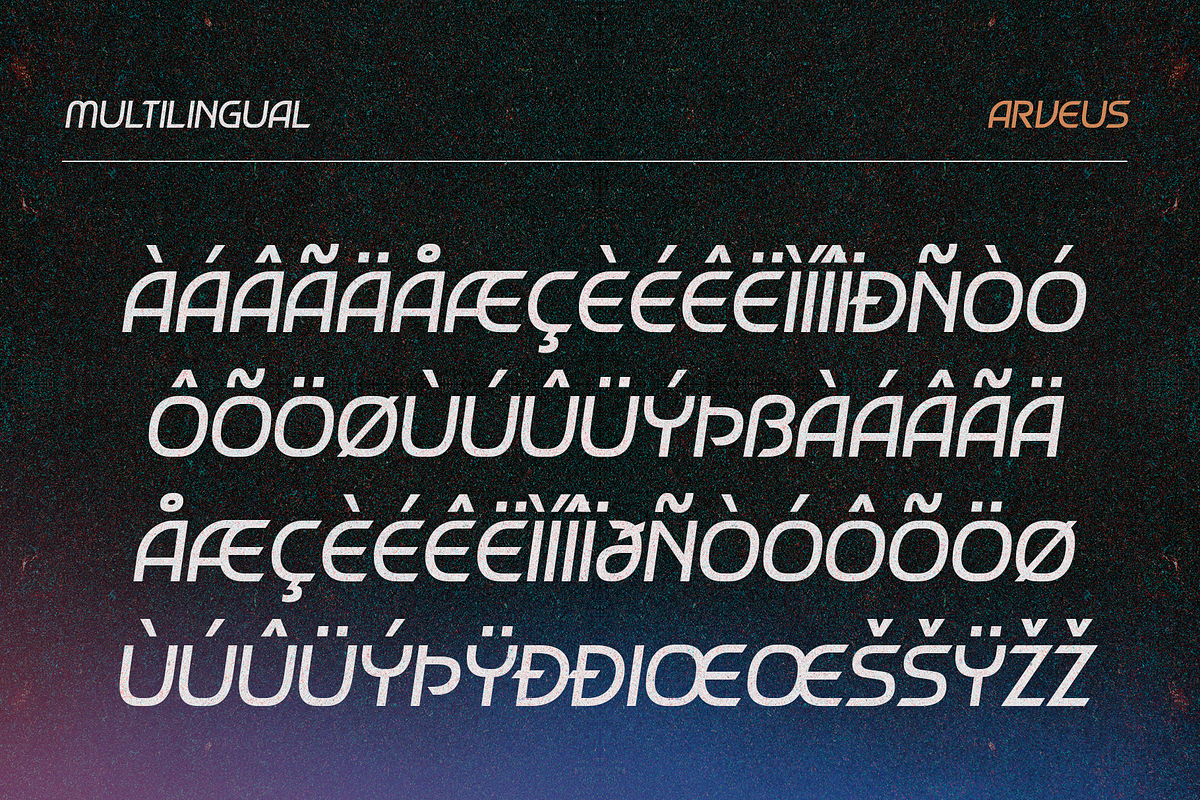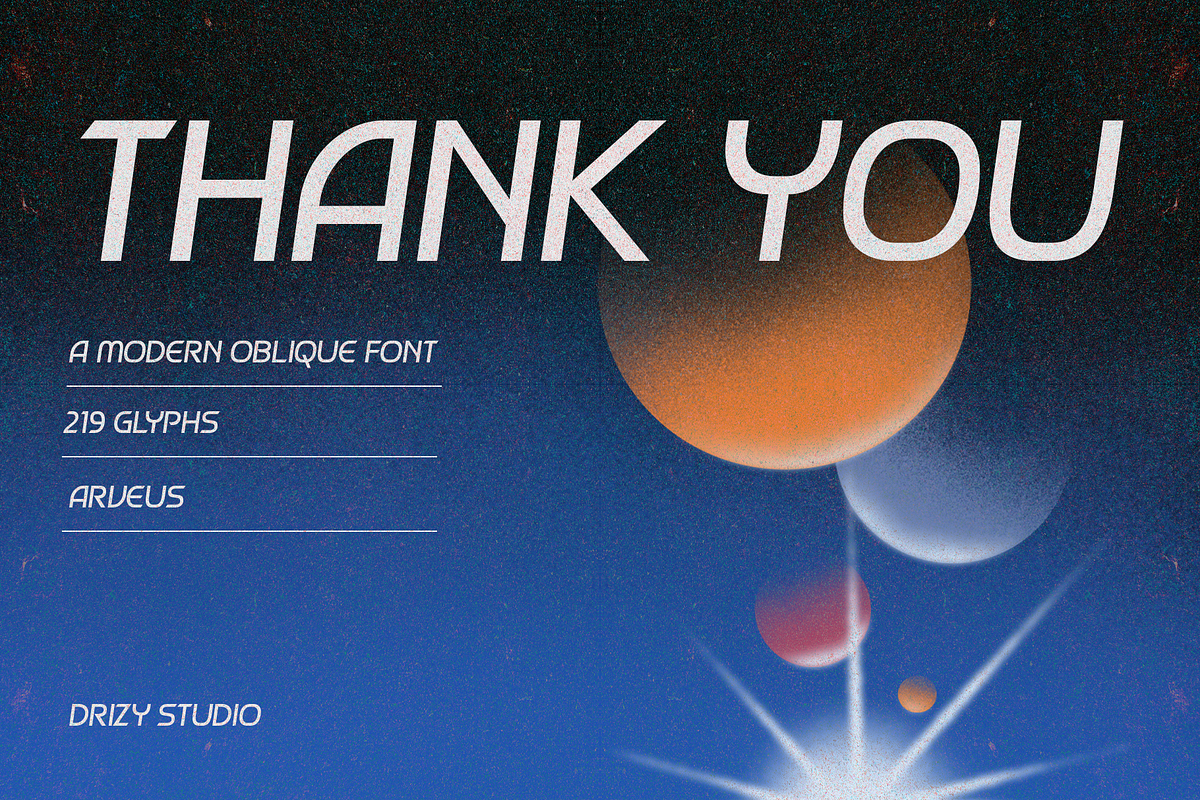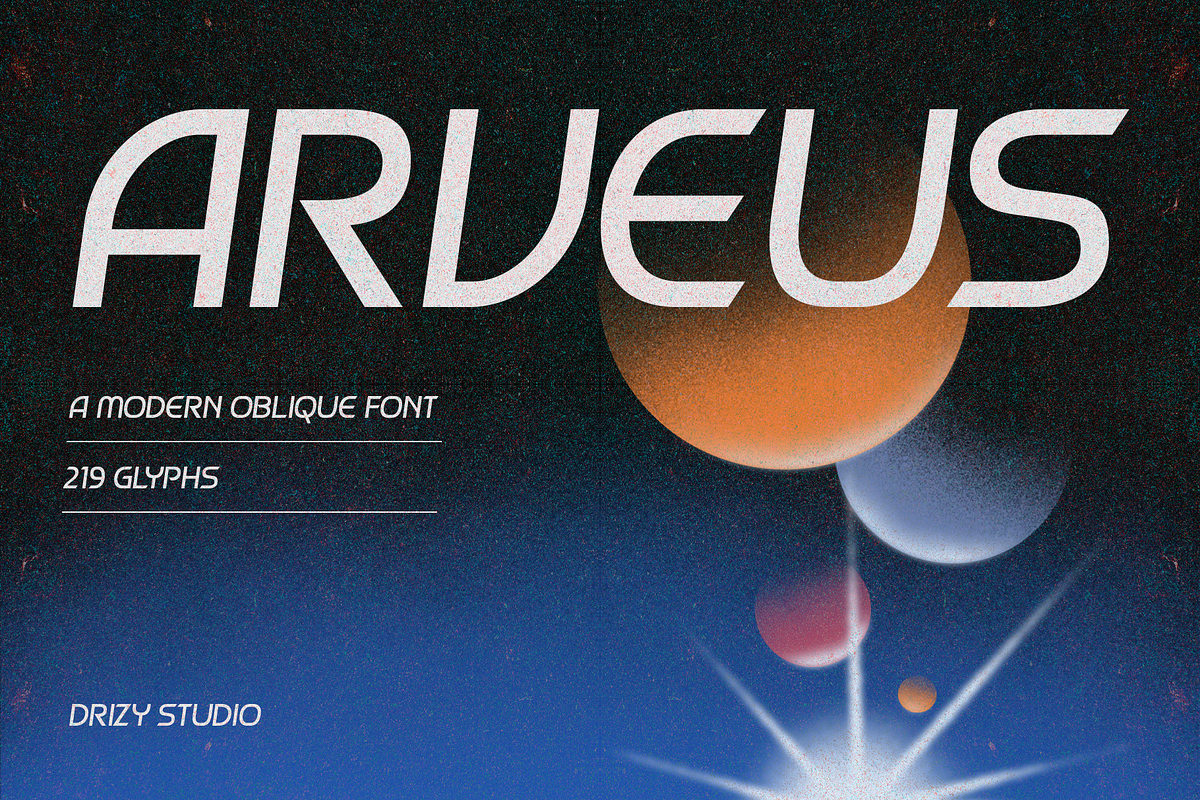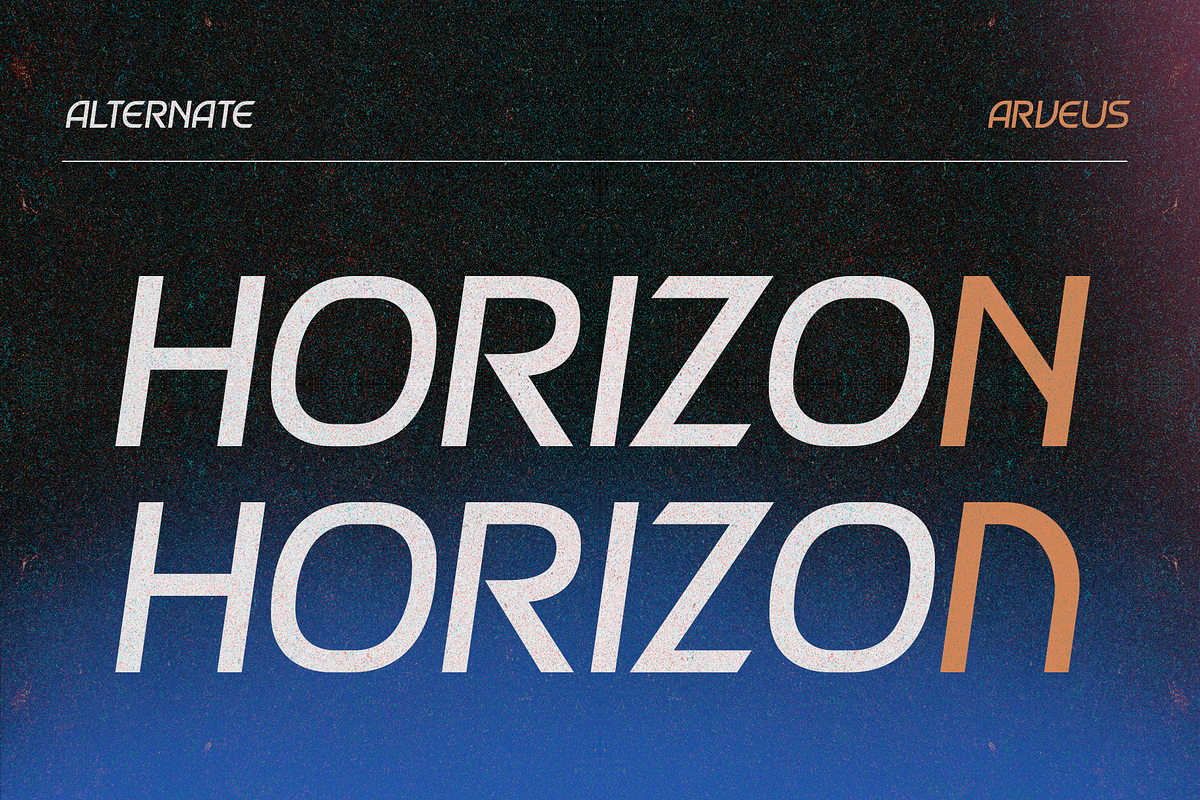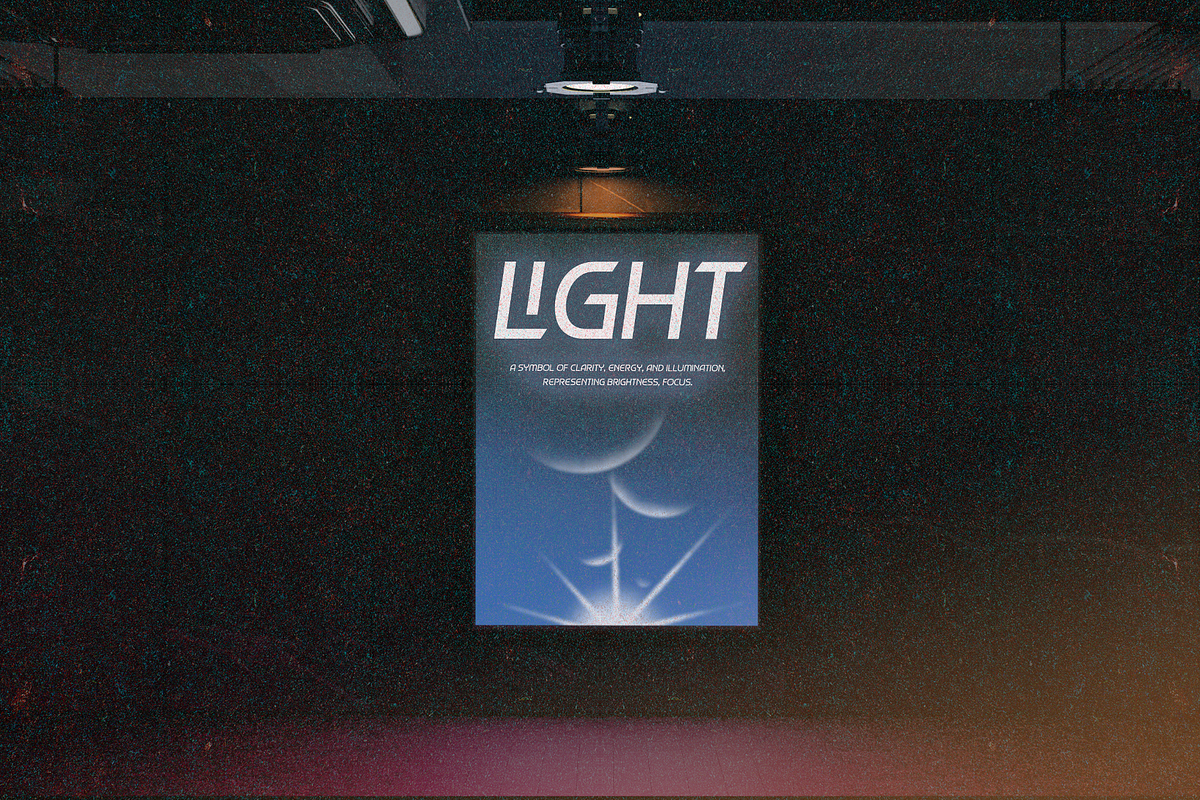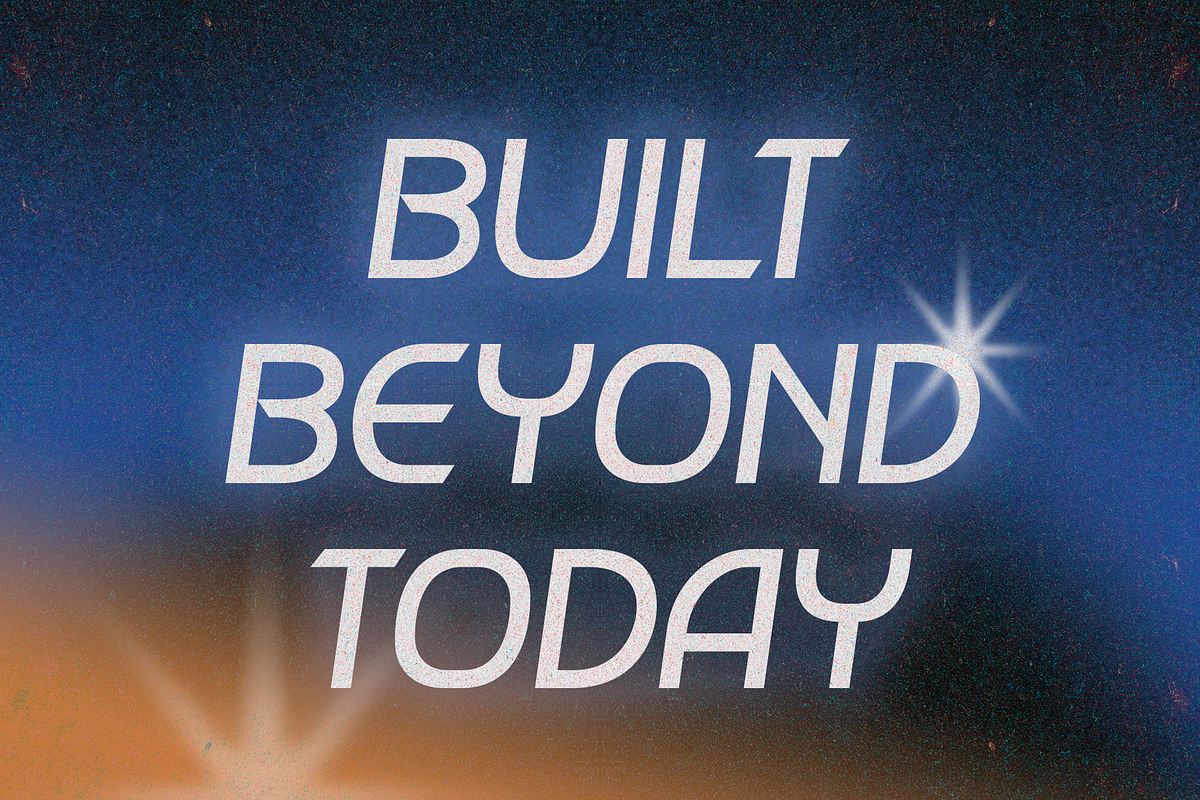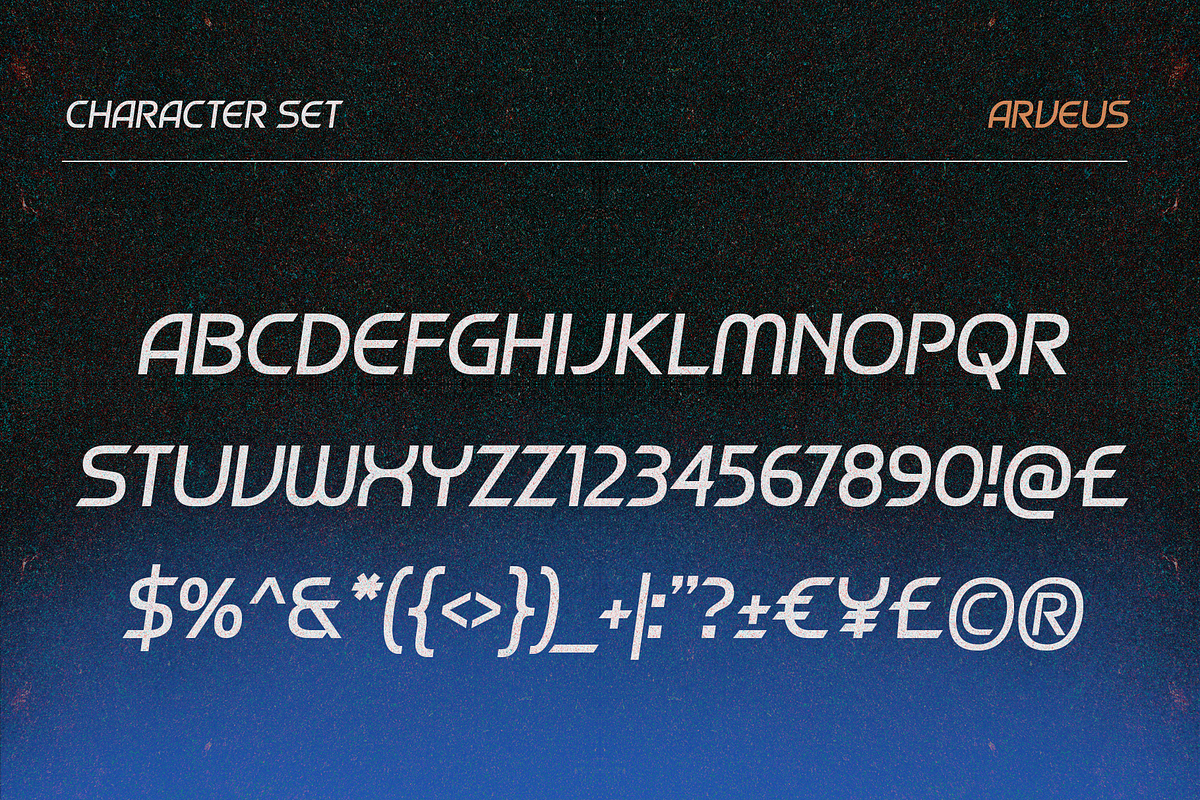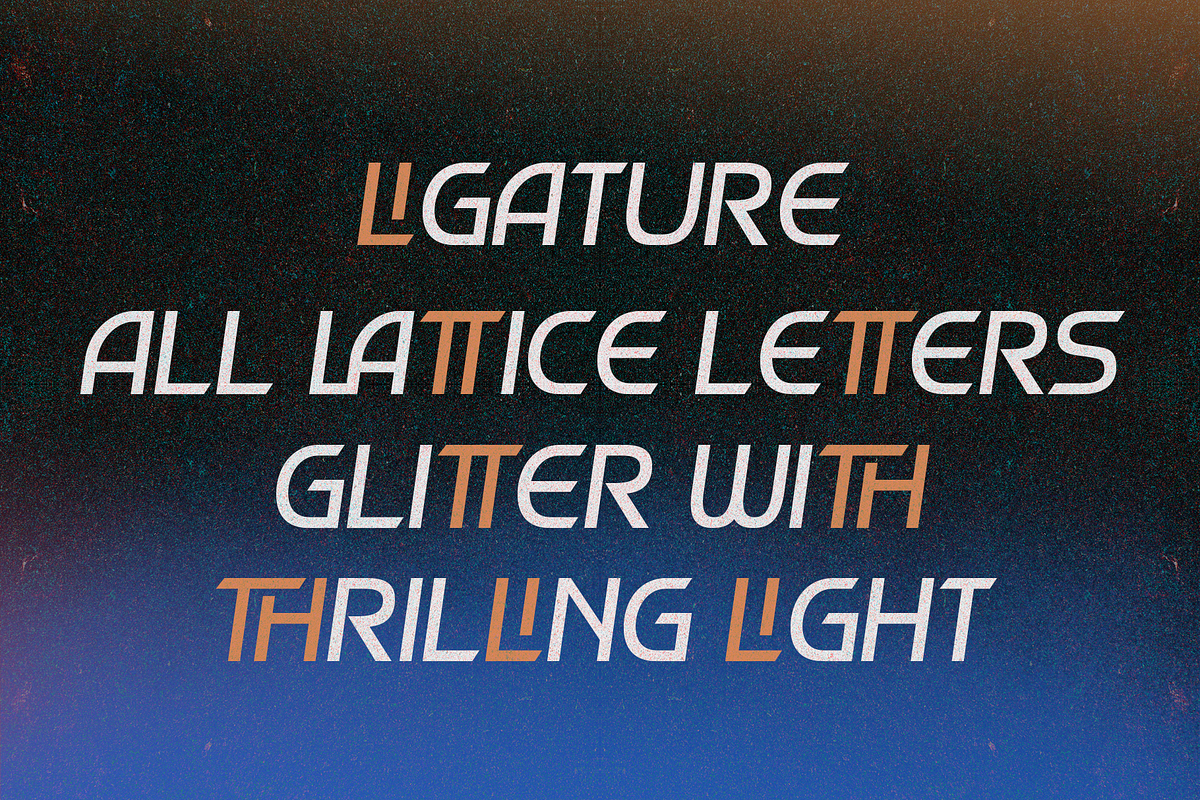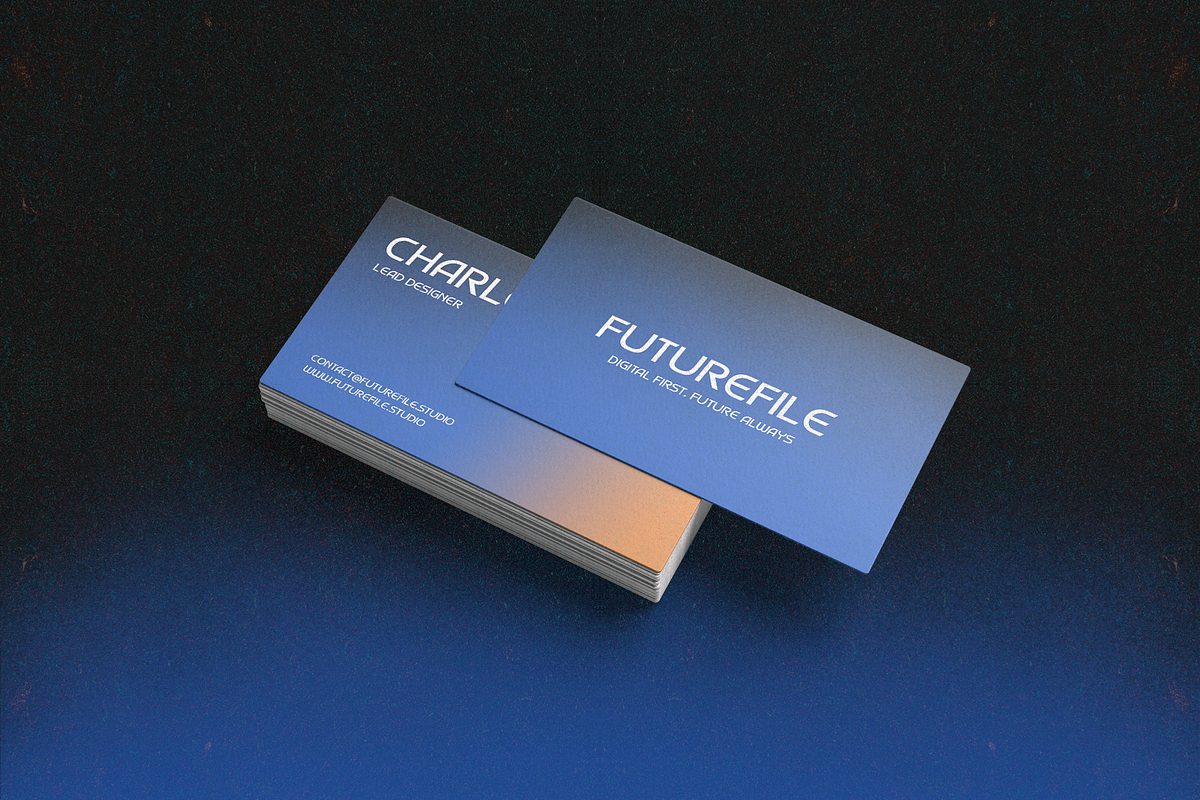
Arveus – Modern Oblique Font
Arveus is a modern oblique font designed to deliver speed, precision, and sharp broadcast energy. Built with clean angles and dynamic forward slants, Arveus creates a strong sense of motion making every word feel fast, confident, and impactful.
Its sharp construction and contemporary structure make it ideal for broadcast visuals, sports branding, tech identities, and high-impact headlines. Arveus balances modern minimalism with aggressive clarity, ensuring maximum readability while maintaining a bold visual attitude.
Perfect for designs that demand momentum and presence, Arveus speaks the language of modern media and fast-paced communication.